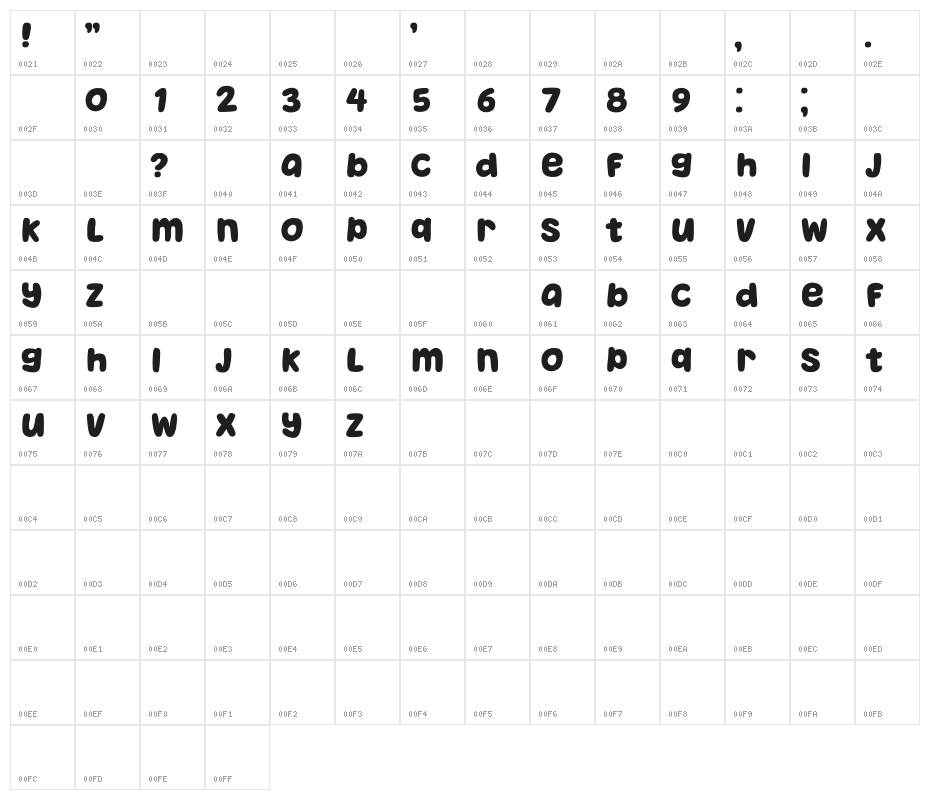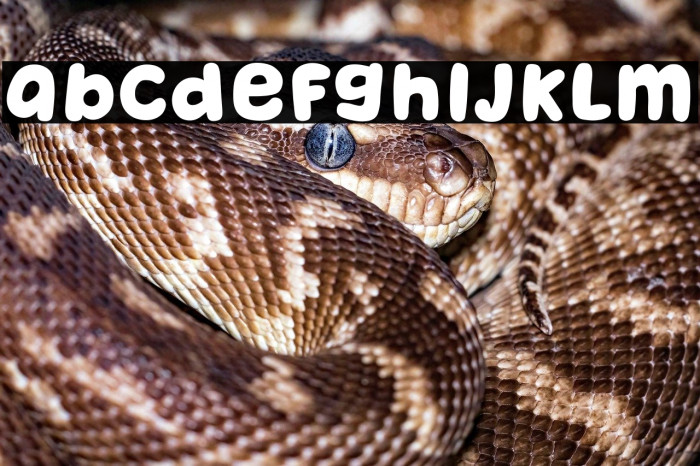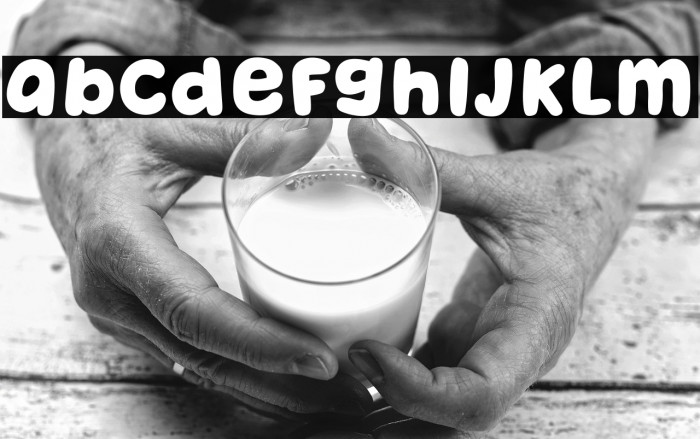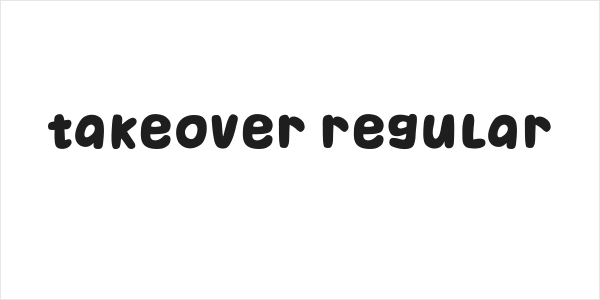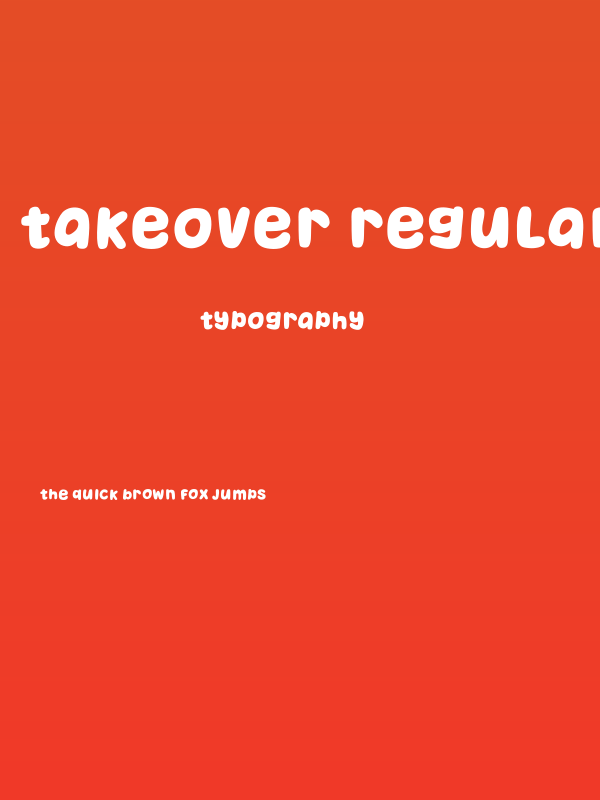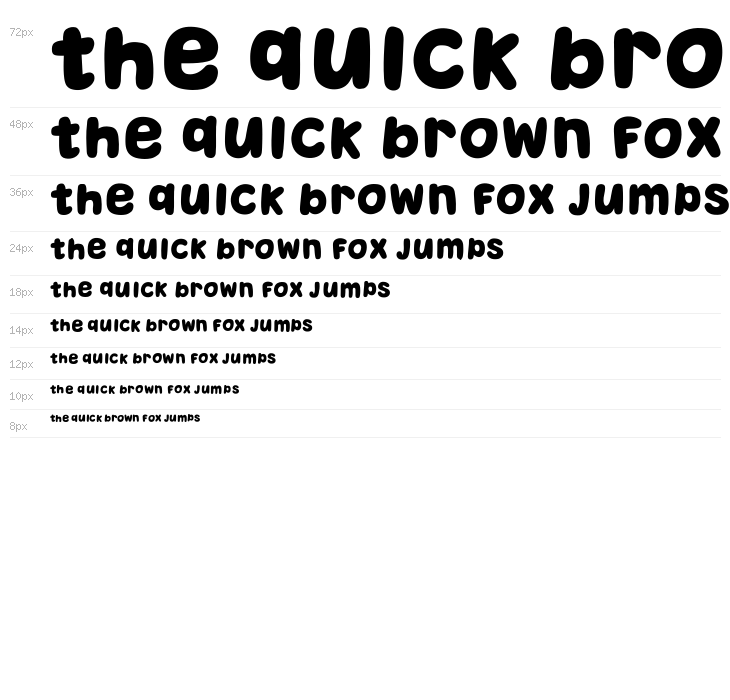
Takeover Regular Font
Takeover Regular Description
This playful and bold font features rounded, bubbly characters that exude a sense of fun and approachability. The letters are thick and uniform, with a consistent stroke width that gives the font a cohesive and solid appearance. The rounded edges and lack of sharp angles contribute to its friendly and informal style, making it ideal for projects that aim to convey warmth and creativity. The font's design is both modern and whimsical, suitable for a variety of uses where a casual and inviting tone is desired.
| Overall Style | Playful, Modern |